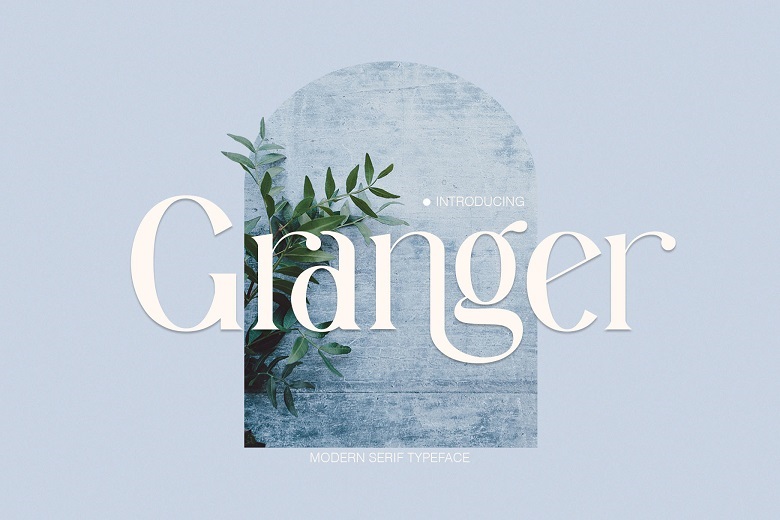
Granger Font
Granger is clean and sophisticated classic serif font. Sequentially and concurrently fashionable and classic, it suits logos, magazines and social media – ideal for logos, magazines or social media. All the brainstormings and idea havings prepared and ready for use in your next project! If you are creating a design for a business, fashion magazine, poster, invitation, cover, logo, or any material you want a modern, elegance, classy contemporary chic look at this font.
Granger is an OpenType typography and includes punctuation, ligatures and numbers; Further, multiple languages are also supported to write.
Granger Serif Font